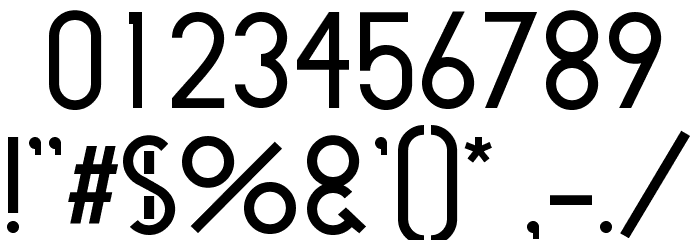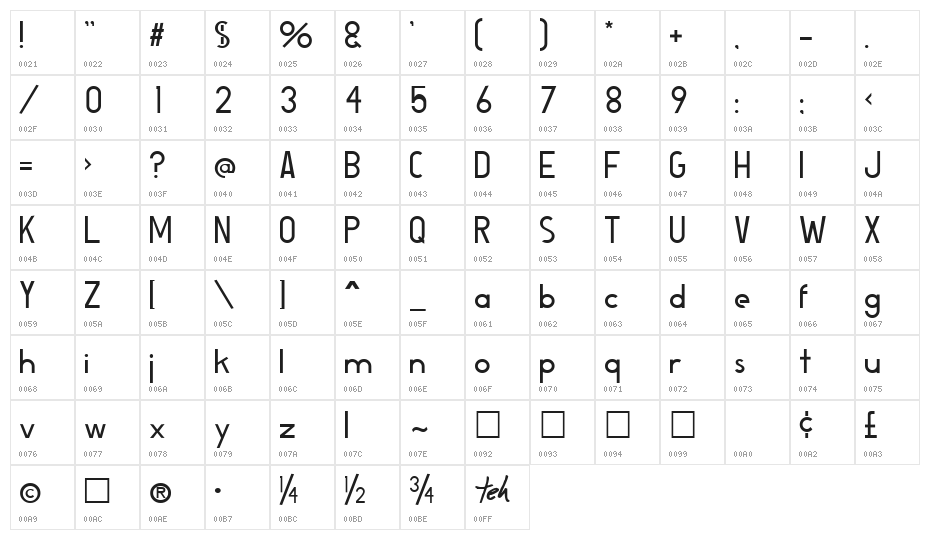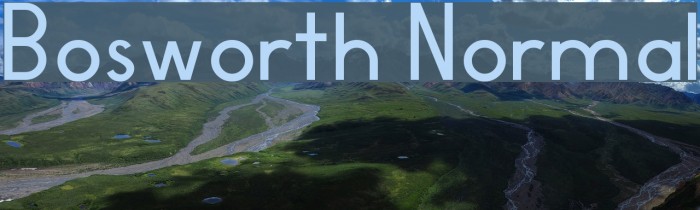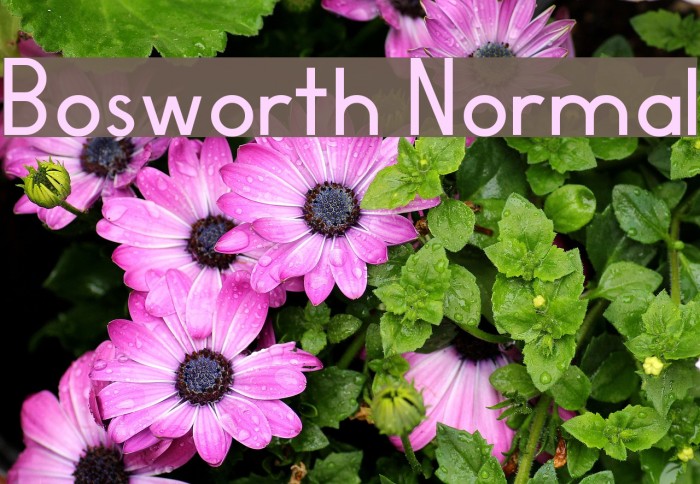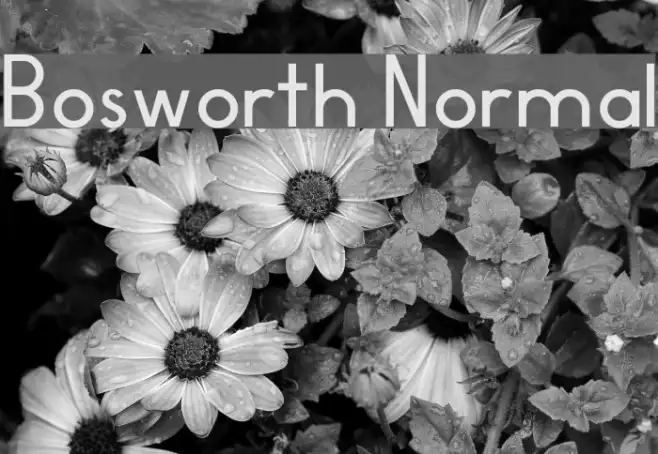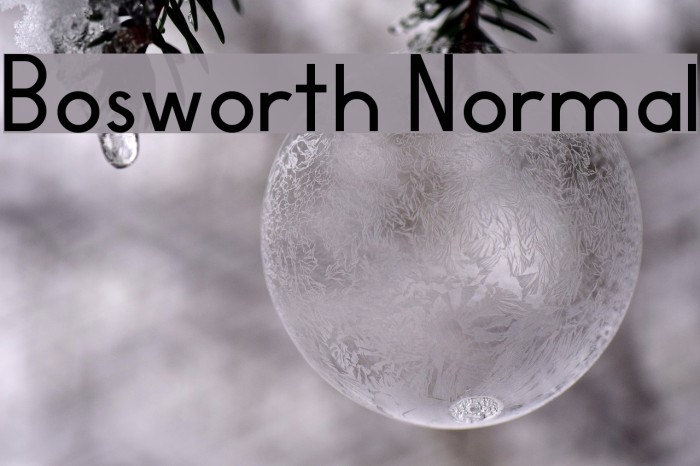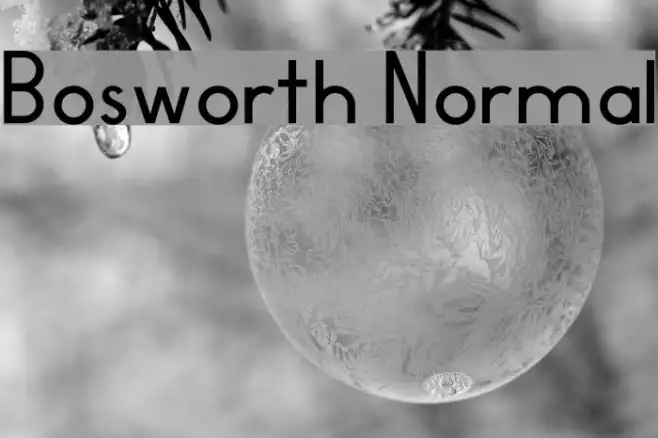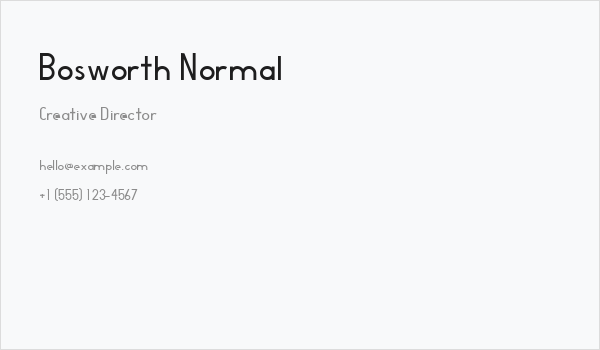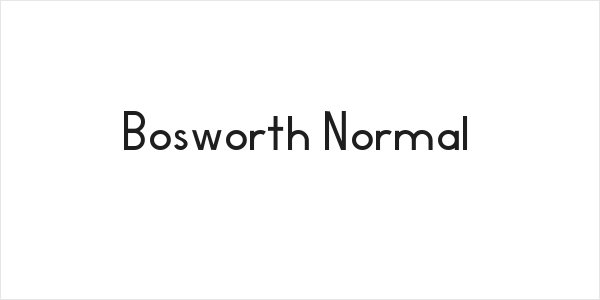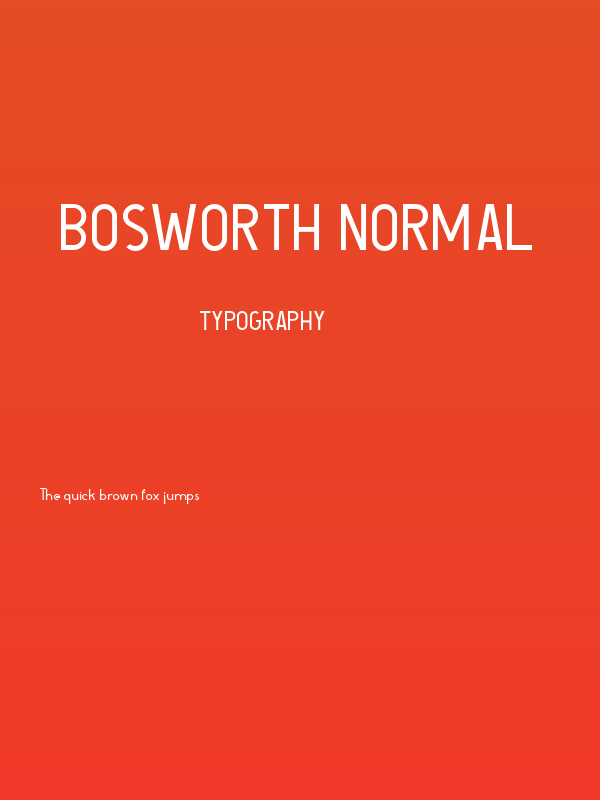
Bosworth Normal Font
Bosworth Normal Description
This font features a clean and modern sans-serif design with a geometric structure. The characters are uniform in width, providing a balanced and harmonious appearance. The uppercase letters are tall and slightly narrow, while the lowercase letters maintain a consistent height, contributing to the font's readability. The numerals are proportional, matching the overall style of the alphabet. Special characters are distinct and well-integrated, ensuring versatility across various applications. The font's simplicity and clarity make it suitable for both digital and print media.